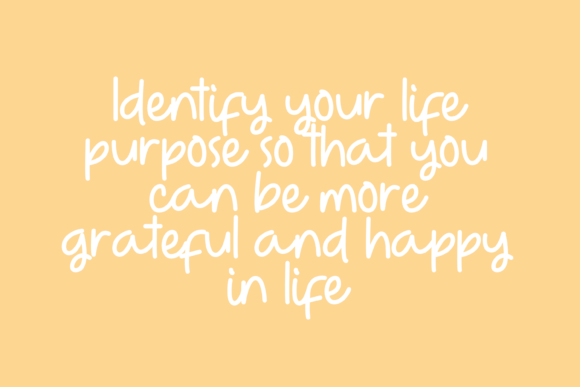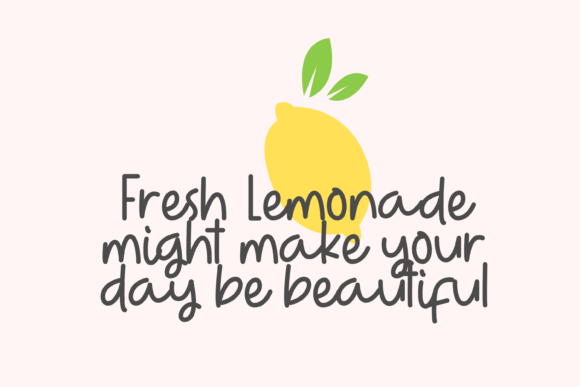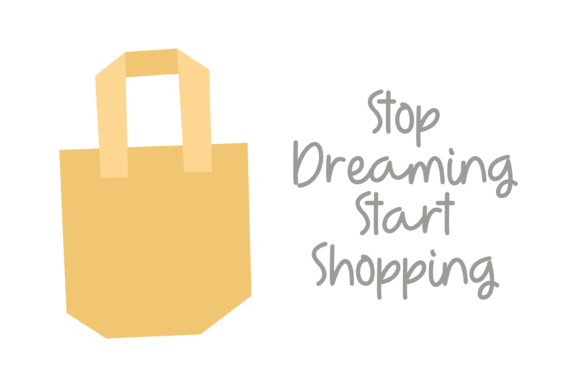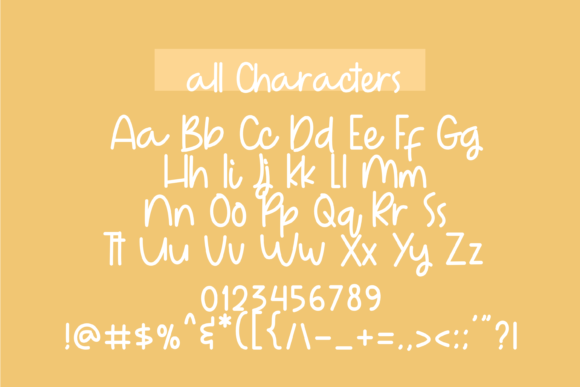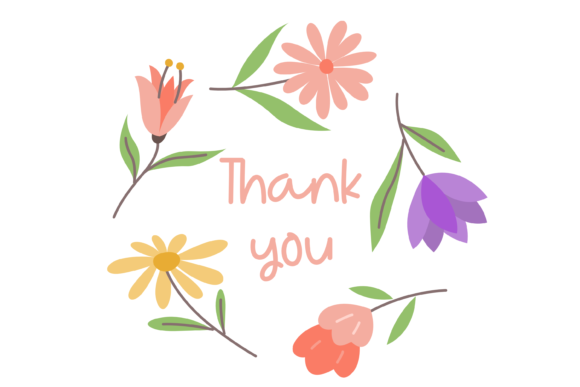
Hello Lemonade Font
About Hello Lemonade Font
Hello Lemonade is a charming and playful handwritten font that brings a refreshing and vibrant touch to your designs. This font is perfect for chalkboard quotes, teaching materials, and any project that requires a friendly and authentic handwritten style.
The casual and organic letterforms of Hello Lemonade give your designs a personal and approachable feel. Each letter is crafted with a hand-drawn appearance, as if it were written with a marker or chalk. This adds a touch of authenticity and warmth to your designs, creating a personal connection with your audience.
With its relaxed and casual vibe, Hello Lemonade is perfect for creating chalkboard-style designs. Whether you’re designing educational materials, classroom resources, or inspirational quotes, this font brings a playful and inviting atmosphere to your work.
The versatility of Hello Lemonade allows you to use it in various design applications. From greeting cards to social media graphics, this font adds a personal and realistic touch to your messages. Its legible letterforms ensure readability, even at smaller sizes, making it suitable for both headlines and body text.
Pairing Hello Lemonade with vibrant colors and playful illustrations further enhances its cheerful and friendly nature. The combination of the handwritten font, bright colors, and whimsical elements creates a delightful and engaging visual experience.
In summary, Hello Lemonade is a friendly and cute handwritten font that adds a personal and realistic feel to your chalkboard quotes, teaching materials, and more. Its playful and approachable style creates a warm and inviting atmosphere, fostering a connection with your audience. Embrace the refreshing charm of Hello Lemonade and bring a touch of authenticity to your designs.